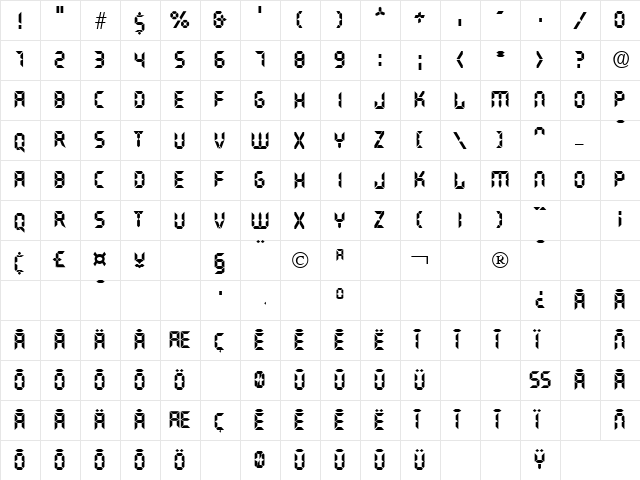
Nasa Display Regular Font Preview
Nasa Display Regular
Design Context for Nasa Display Typeface
Nasa Display is built around its visual character rather than neutral utility — its distinctive forms are designed to make an impression at display sizes.
Font Pairing: Pair with a clean neutral sans-serif for body copy to let Nasa Display's character lead without overwhelming the composition.
Pro Tip: Use Nasa Display exclusively at display sizes — it was designed to be seen, not read at length. Let a neutral companion handle body copy.